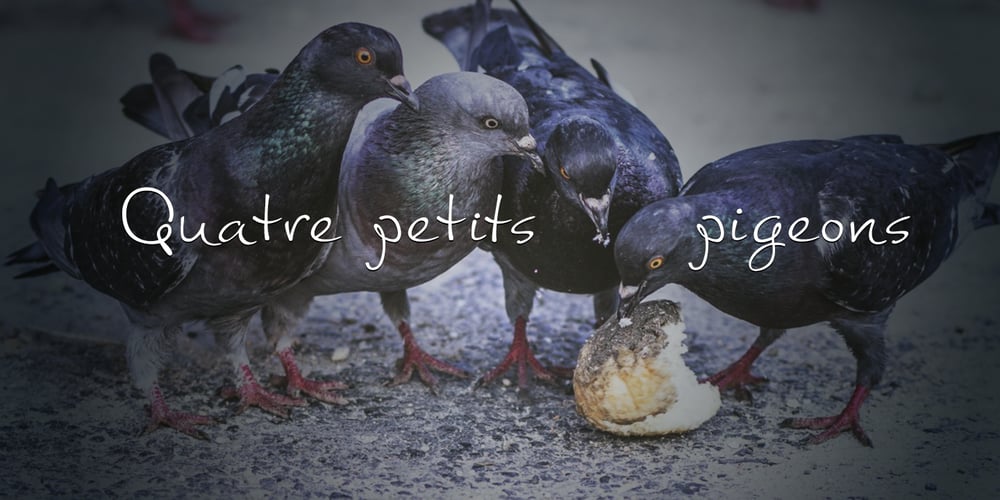
Pigeon Script Font Family was designed by Denis Petrov and published by Denis Petrov. Pigeon Script contains 1 styles and family package options. The modern incidental, decorative and poster font that imitates the modern household handwriting or handwriting with a capillary or gel pen and rapidograph. There are letters of the Russian and Latin alphabets in upper and lowercase with alternative outlines and ligatures, numbers from 0 to 9, simple fractions, mathematical and punctuation marks, different types of quotes and brackets in the set of characters.